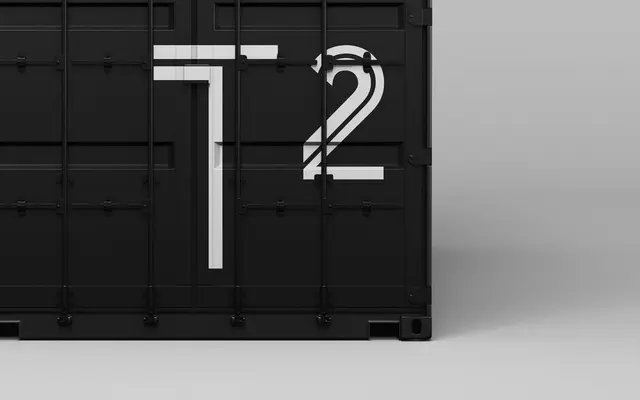
Tengu
The Northern Block · Gustavo Pardo Sarmiento · 1973
A single-weight multiline display face digitised from Gustavo Pardo Sarmiento's 1973 Tangui, built on an intricate wire-like parallel-line structure.
Digitised and expanded from Gustavo Pardo Sarmiento's Tangui (1973), the typeface uses a wireframe construction of fine parallel lines to produce an effect that reads as simultaneously retro and futuristic. Over 400 characters are included with OpenType support for lining figures, fractions and Western, Southern and Central European languages. Best suited to display contexts such as posters, apparel and cover work where the ornate structure can be read at scale.
A wireframe multiline display face digitised from a 1973 original; the intricate parallel-line structure places it firmly in decorative display territory with no body-text application.